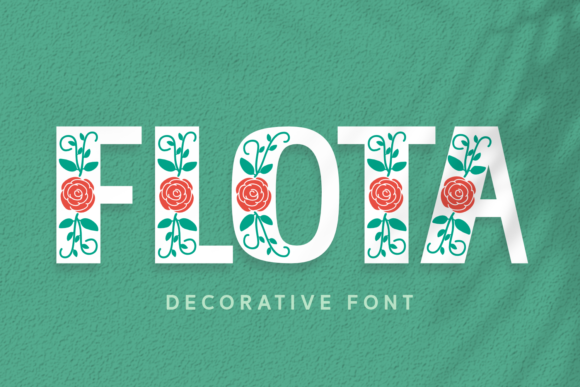
Unlocking the Beauty of Nature in Typography
Have you ever sat in a garden, surrounded by blooming flowers, and felt the urge to create something that captures their essence? For designers and crafters, this feeling is a familiar spark that ignites a new project. It’s this exact moment that inspired the creation of Flota Font, a unique decorative typeface that brings the beauty of nature to your designs.
Flota Font is more than just a font – it’s a way to infuse your projects with the charm of roses and other flowers. With its intricate details and delicate touches, it’s the perfect match for embroidery, monogram designs, art prints, and so much more. Whether you’re a seasoned designer or a crafty enthusiast, Flota Font is a valuable addition to your toolkit.
Key Features of Flota Font
- Unique Characteristics: Flota Font features a distinctive, modern design with clean lines, geometric shapes, and a touch of elegance, making it perfect for use in corporate branding, advertising, and editorial design.
- Language Support: The font supports a wide range of languages, including Latin, Cyrillic, and Greek, making it an ideal choice for global branding and design projects.
- Kerning and Ligatures: Flota Font includes advanced kerning and ligature pairs, ensuring that text sets are visually appealing and professional-looking.
- Weight and Style Options: The font is available in multiple weights and styles, including Light, Regular, Bold, and Italic, allowing designers to create a wide range of visual effects and moods.
Designer Review: Flota Font
Overall, I think Flota Font has some great qualities that make it a solid choice for many projects, but it’s not without its limitations. Let’s dive in!
- Flota’s unique blend of modern and vintage elements creates a visually appealing aesthetic that can add character to any design.
- The font’s large x-height makes it highly legible, even at smaller sizes, making it a great choice for body text.
- The font’s versatility extends to its use in various contexts, from titles and headings to body text and even logos.
- Flota’s irregularities can sometimes make it difficult to read, particularly in long blocks of text or at very small sizes.
- The font’s bold and italic styles can feel somewhat inconsistent with the rest of the font family.
- Some users may find the font’s overall feel to be too ornate or busy, which can detract from the overall design.
Overall, I think Flota Font is a solid choice for designers who are looking to add a unique touch to their projects. While it may have some limitations, its strengths make it a great option for the right project. Just be mindful of the potential drawbacks and use it thoughtfully.
Getting the Most Out of Flota Font
For optimal results, follow these tips:
- Pair Flota Font with bold or italic styles for added emphasis.
- Experiment with different font sizes to create visual hierarchy.
- Use Flota Font in combination with other fonts for a unique look.
Flota Font is suitable for:
- Editorial and publishing content.
- Marketing materials and advertising.
Alternatives to Flota Font for Designers
The Inter Font is a modern sans-serif typeface designed by Rasmus Andersson. It is known for its clean and minimalistic design, making it suitable for digital products, apps, and websites. Inter Font is a great alternative to Flota Font for designers who want a more contemporary and sleek look.
Inter Font is more geometric and precise compared to Flota Font, which has a more rounded and friendly feel. While Flota Font is ideal for branding and packaging, Inter Font is better suited for digital products and interfaces.
The Lato Font is a sans-serif typeface designed by Łukasz Dziedzic. It is known for its friendly and approachable design, making it suitable for various design projects, including branding, advertising, and publishing. Lato Font is a great alternative to Flota Font for designers who want a more relaxed and inviting look.